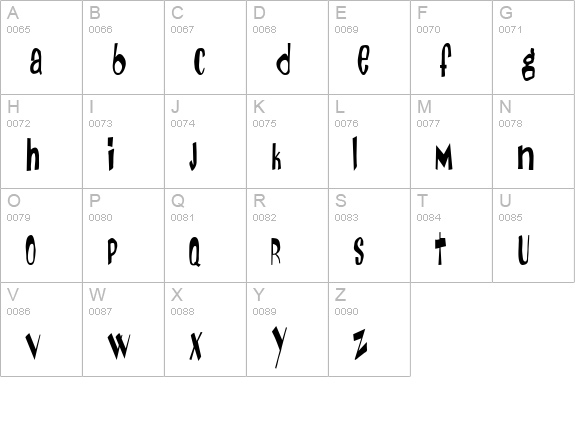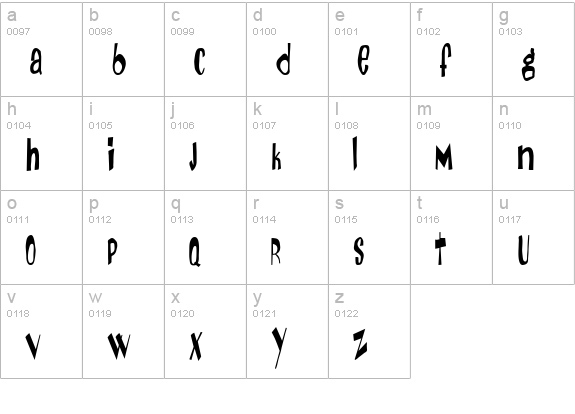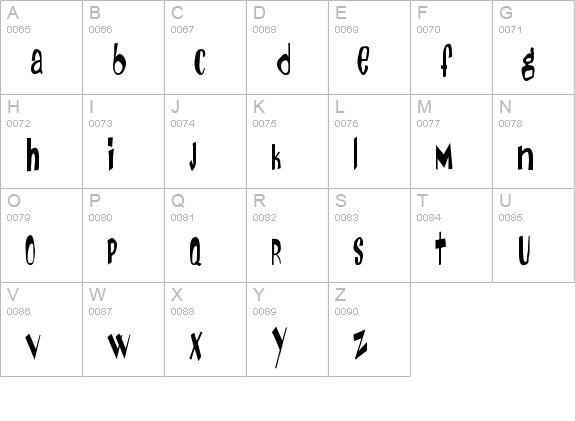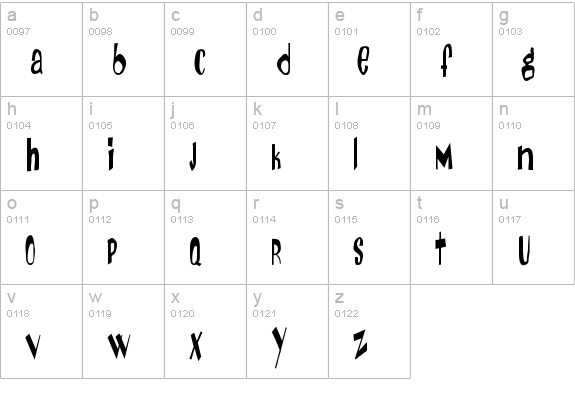
The Day Of The Tentacle font is a quirky and playful typeface inspired by the classic video game of the same name. With its bold and whimsical letterforms, this font is sure to add a touch of fun and nostalgia to any design project. Whether you're creating posters, invitations, or branding materials, the Day Of The Tentacle font is the perfect choice to make your text stand out. The best part? This font is completely free to download at FontsMarket.com! Simply head over to the website and grab your own copy of the Day Of The Tentacle font to start incorporating its charm into your creative endeavors. Don't miss out on this fantastic opportunity to add a unique and eye-catching font to your collection – download the Day Of The Tentacle font today!